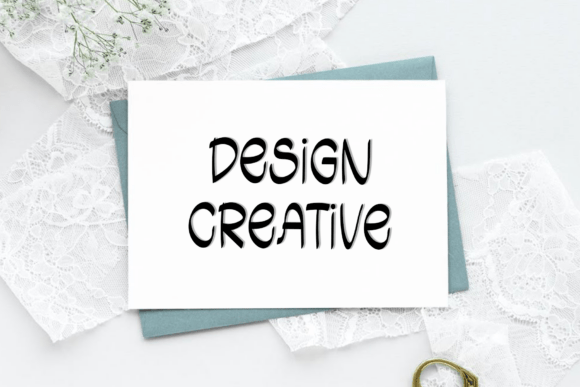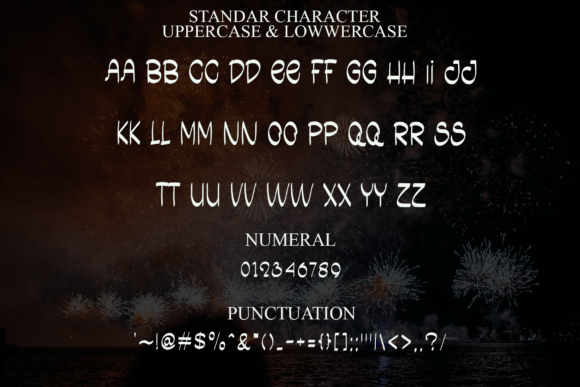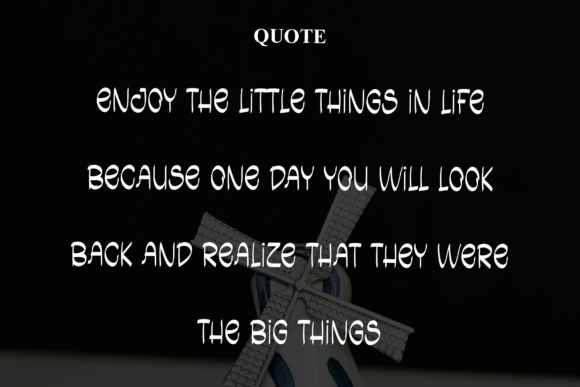
Introduction to Relaxing at Home Font
Relaxing At Home is a casual and creative font that exudes warmth and friendliness.
Key Features of Relaxing at Home Font
Why Choose Relaxing at Home Font?
Relaxing at Home Font offers exceptional quality and versatility, making it a valuable addition to your design toolkit. Whether you’re creating for personal projects or commercial use, Relaxing at Home Font delivers professional results.